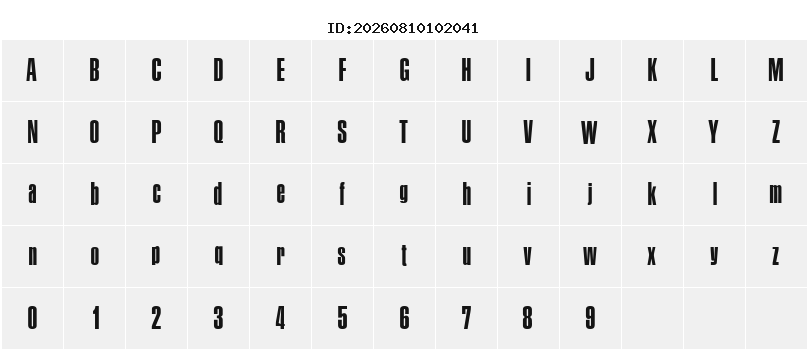
P700-Sans Preview
• Font Name: P700-Sans
• Designer: SoftMaker Software GmbH
About P700-Sans.ttf
P700-Sans.ttf is a modern, elegant sans-serif font designed for ultimate readability and visual harmony. Perfect for branding, headlines, web design, and print materials.